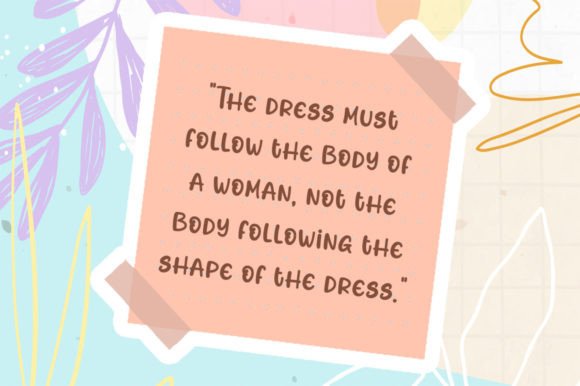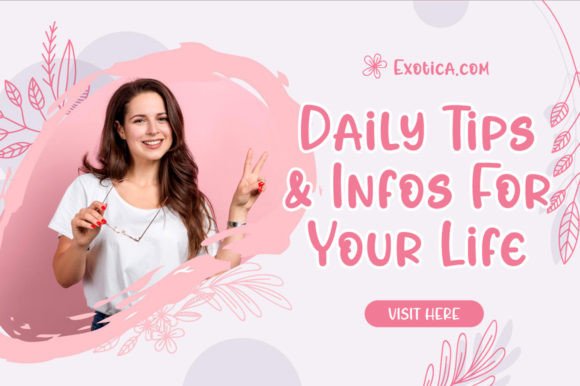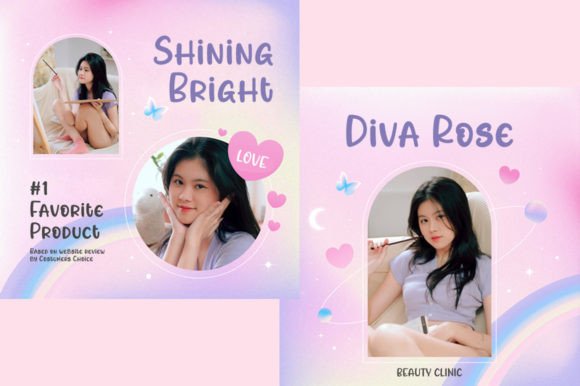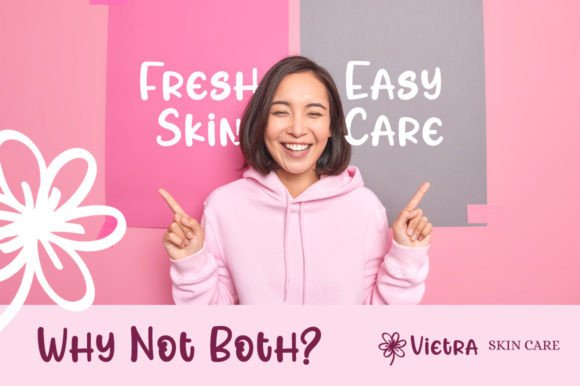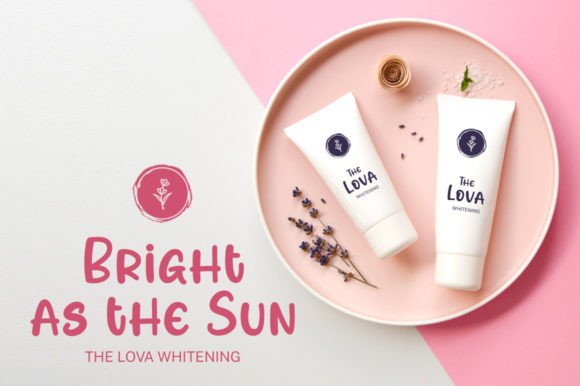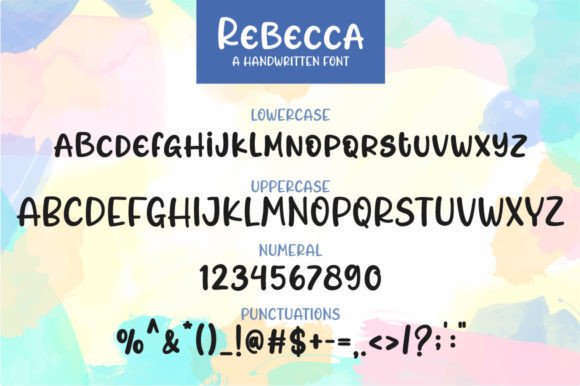
Introduction to Rebecca Font
As a designer, have you ever been in the middle of a creative project, staring at a blank canvas, and suddenly, a spark of inspiration hits you? It’s that moment when everything falls into place, and you know exactly what you need to take your design to the next level. For me, that moment often involves the perfect font, one that adds a touch of elegance and sophistication to my design. And that’s where Rebecca Font comes in.
| 📌 Product Name | Rebecca Font |
| 👤 Author | Nirmala Creative |
Rebecca Font is a stunning handwritten display font that is sure to elevate your design game. With its high-quality design and transparent background, it’s the perfect addition to any project, from invitations and thank you cards to logos and business cards. And the best part? It’s available for free download, making it a valuable resource for designers of all levels.
Key Features of Rebecca Font
- Unique, elegant font with a transparent background, ideal for use in various design contexts.
- Perfect for use in various design applications, including web design, graphic design, and digital publishing.
Honest Review: Rebecca Font
I recently stumbled upon the Rebecca Font and I must say, it’s a great addition to my design arsenal. As a designer, I’m always on the lookout for high-quality fonts that can elevate my creative projects.
The Rebecca Font is a beautiful, elegant script font that’s perfect for wedding invitations, greeting cards, and other designs where a touch of sophistication is needed. It’s available for free download, which is a major plus for designers like me who are always on the lookout for affordable design resources.
- ✨ Transparent background, making it easy to use in various design scenarios
- ⚠️ Limited customization options, which may not be ideal for designers who want more control over their fonts
- ⚠️ May not be suitable for bold, sans-serif designs
Overall, I’m impressed with the Rebecca Font. It’s a great addition to my design library, and I’ll definitely be using it in future projects. If you’re a designer looking for a high-quality, elegant script font, I’d definitely recommend giving the Rebecca Font a try.
Rebecca Font
Tips for Getting the Most Out of Rebecca Font
Use the transparent background feature to create a seamless design. Experiment with different font sizes and styles to achieve the desired effect. Combine Rebecca Font with other design elements to create a unique and eye-catching design.
Rebecca Font is ideal for use in creative projects such as logos, business cards, and brochures. It’s also great for use in digital design projects like social media graphics and presentations.